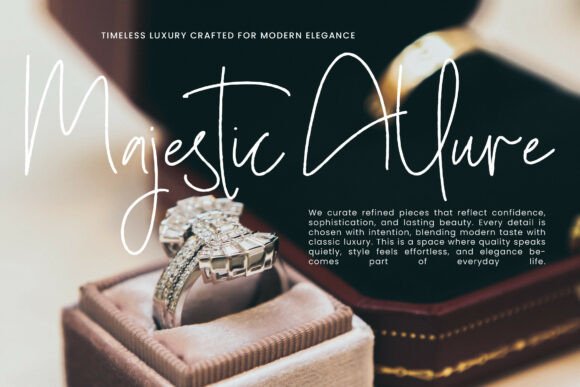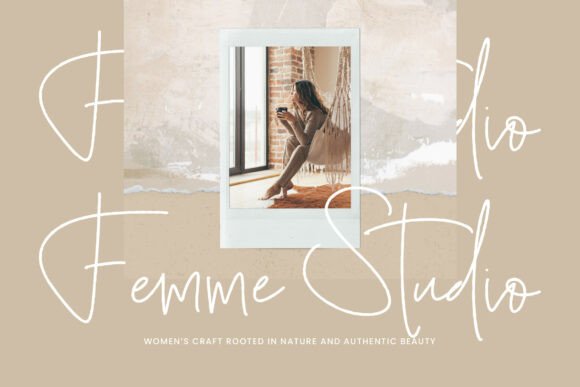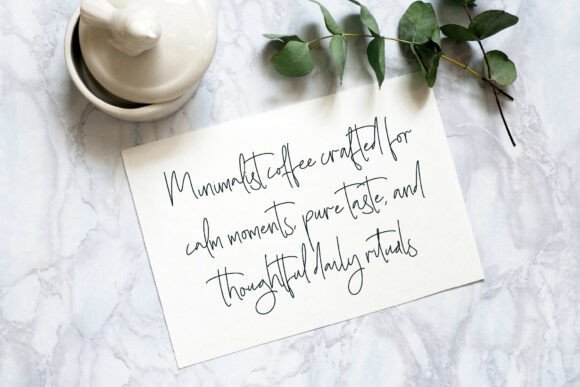
Introduction to Sharottens Font
Imagine you’re working on a high-end photography project, pouring your heart and soul into crafting the perfect image. As you add the finishing touches, you know the right font can make all the difference in elevating your work to the next level. That’s where the Sharottens Font comes in – a masterclass in modern monoline elegance that will leave a lasting impression on your audience.
As a valuable design resource, the Sharottens Font offers a sophisticated and “inky” look that feels both professional and intimate. Its consistent stroke weight and beautiful, sweeping transitions create a refined signature that’s perfect for luxury packaging, elegant personal branding, and even minimalist business cards.
With a massive library of 445 glyphs, the Sharottens Font provides endless ligature and alternate options to make every word look like a custom piece of beautiful lettering. And with PUA encoding included, you can easily access all special characters and decorative elements without additional software – making it a must-have for any creative project.
Key Features of Sharottens Font
- High-quality design resource ideal for creative projects, offering a unique and stylish aesthetic.
- Sharottens Font is a versatile design tool, suitable for a wide range of creative projects, from branding and advertising to editorial and digital media.
Honest Review: Sharottens Font
As a designer, I’m always on the lookout for high-quality design resources to enhance my creative projects. Recently, I stumbled upon Sharottens Font, and I’m excited to share my thoughts on this font.
- Sharottens Font offers a sleek and modern aesthetic that’s perfect for minimalist designs.
- The font is highly customizable, allowing me to adjust the size, color, and spacing to suit my needs.
- The transparent background feature is a game-changer for designers who want to add a touch of sophistication to their designs.
- ⚠️ Some users may find the font’s minimalist design too plain or boring.